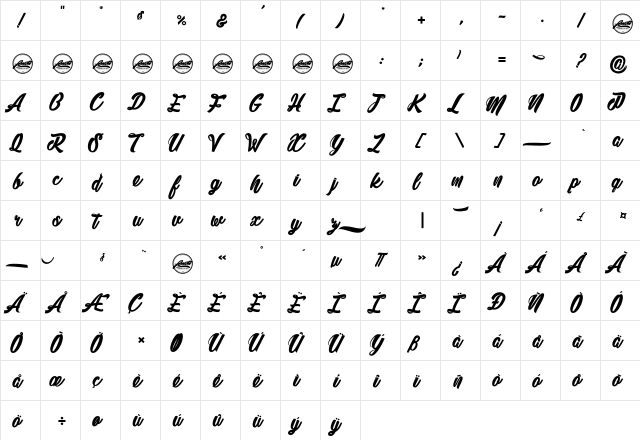
Detrimental_PersonalUseOnly Regular
| Foundry | dcoxy Medina Gregory |
| Designer | dcoxy Medina Gregory |
Design Context for Detrimental_PersonalUseOnly Typeface
Detrimental_PersonalUseOnly is a composed and adaptable typeface that performs quietly and consistently across a wide range of design contexts.